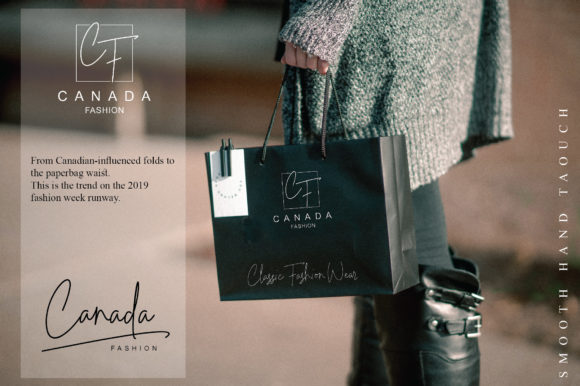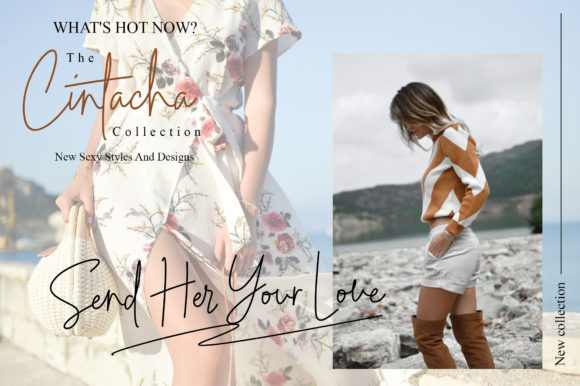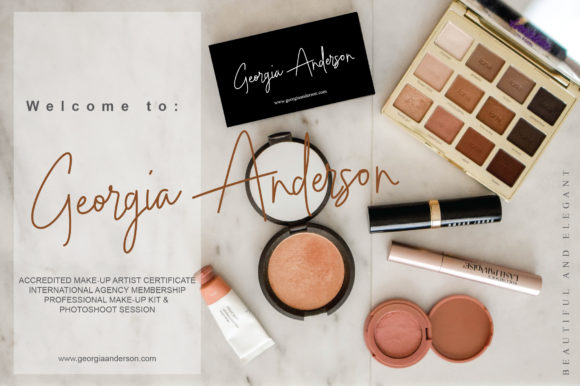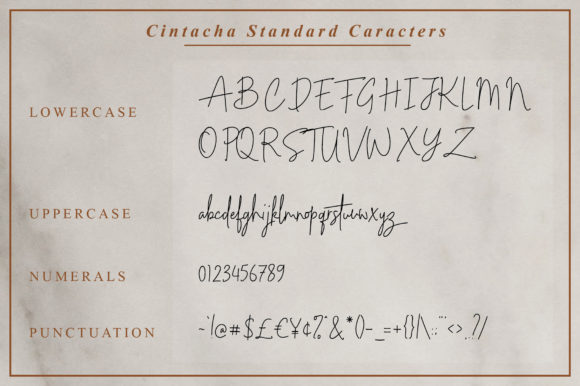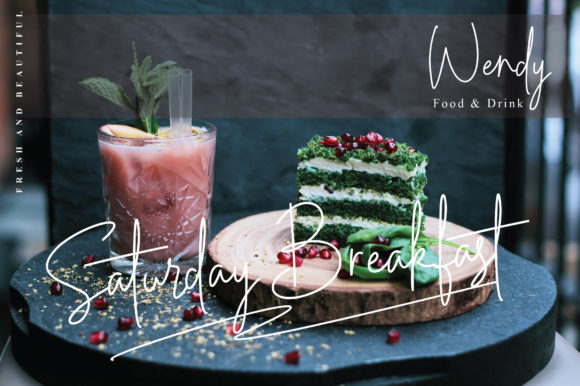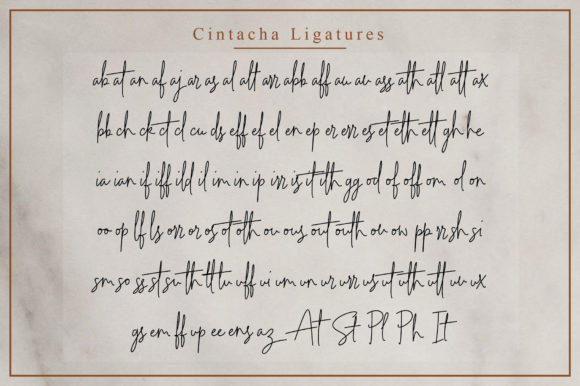
Introduction to Cintacha Font
Cintacha is a stunning and light handwritten font with an amazing feel.
It will turn any design project into a stand out .
Key Features of Cintacha Font